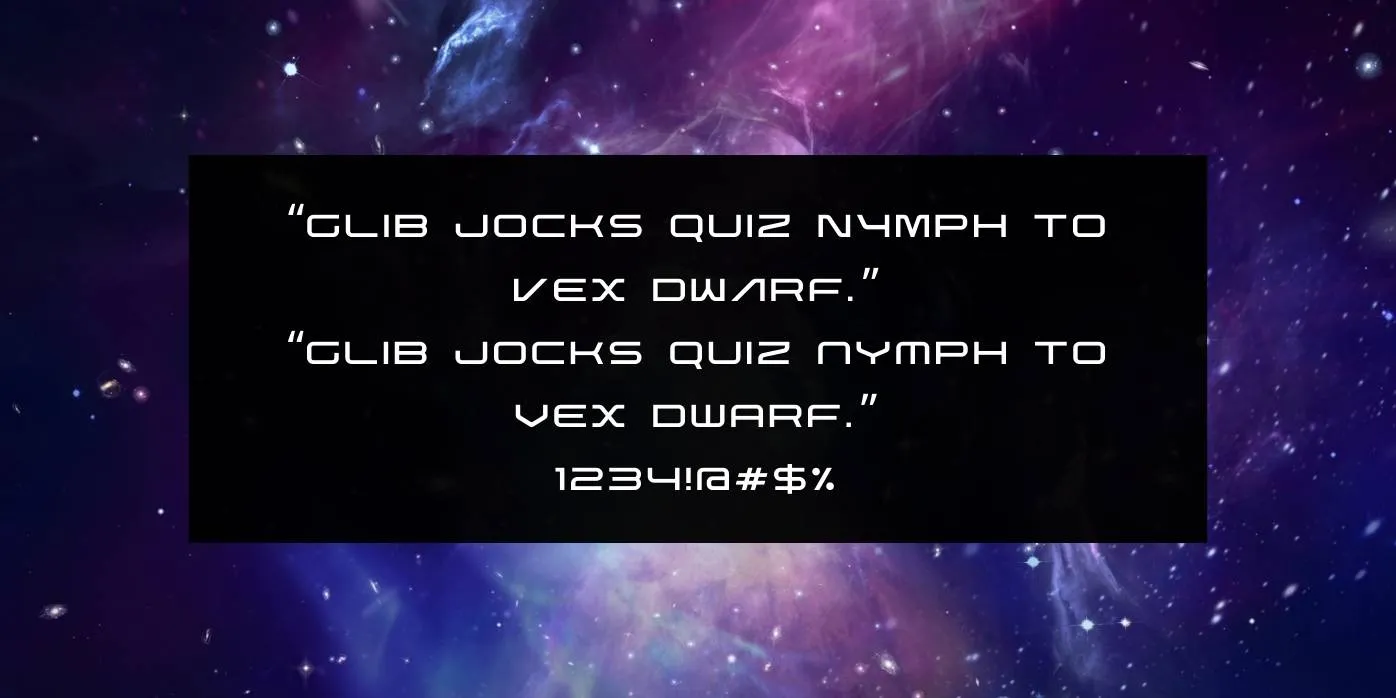
Nebula Font
Nebula Font is a classic typeface designed by Typologic Foundry. It belongs to the techno family.  The design is simple and rational. The shapes of the letters are based on basic geometric forms. The typeface is available in three weights: light, regular and bold.
This gorgeous font was designed with both digital and print applications in mind. It works well for our design, branding, and advertising. The typeface is also legible in small sizes and can be used for body text. The copy and paste function of this family is very classic for text designs.
Another similar font which is sega font is perfect for different designs. If you are looking for a versatile, modern typeface that can be used for a variety of purposes, Nebula Font is a great choice. Download it now and start using it in your projects. The generator tool of this typeface is perfect for all designs.